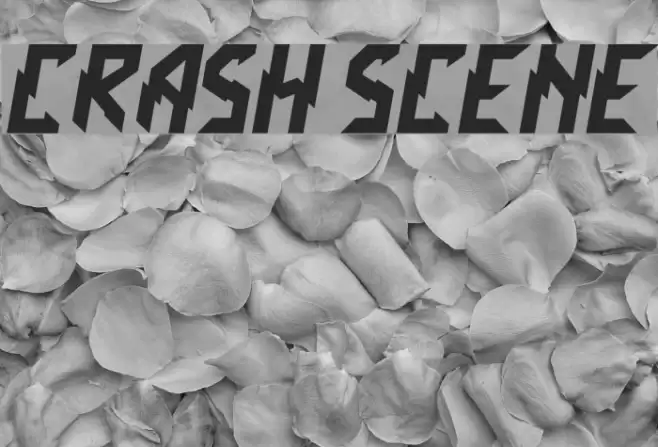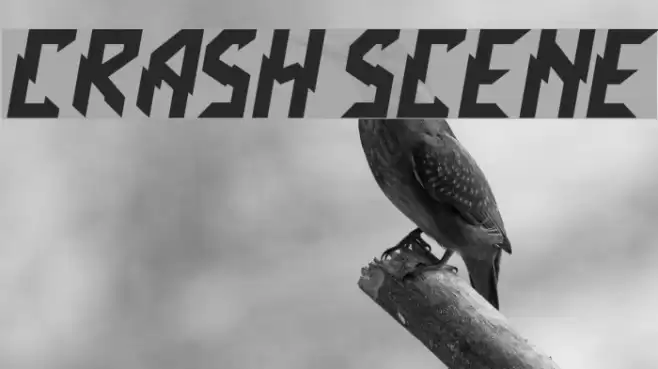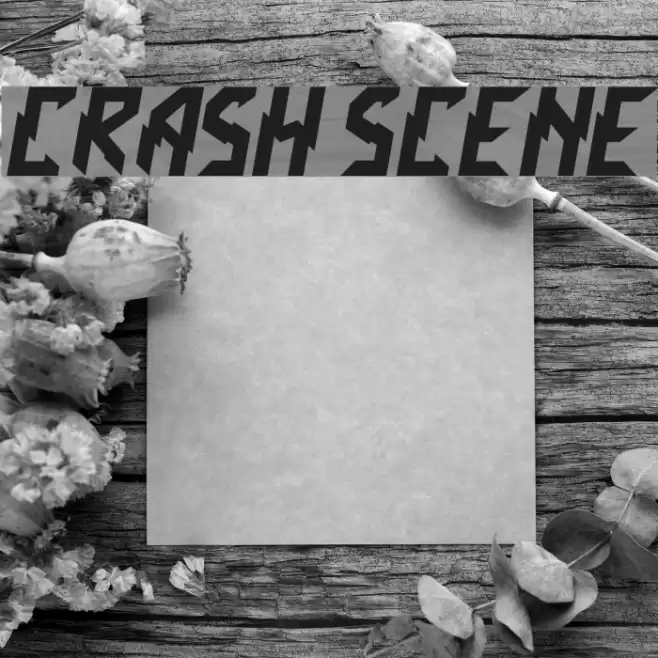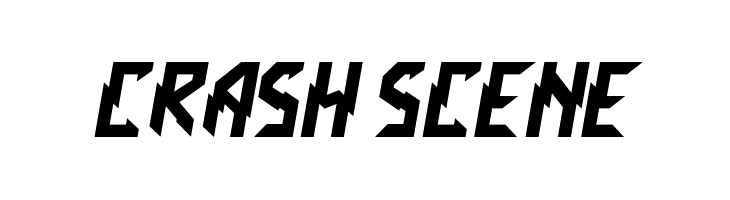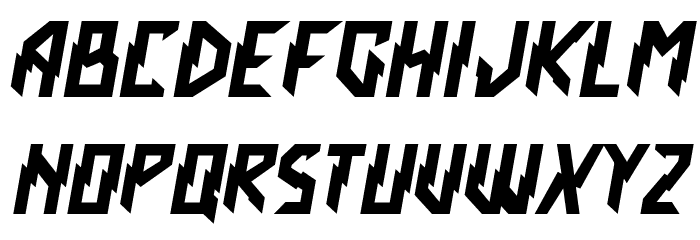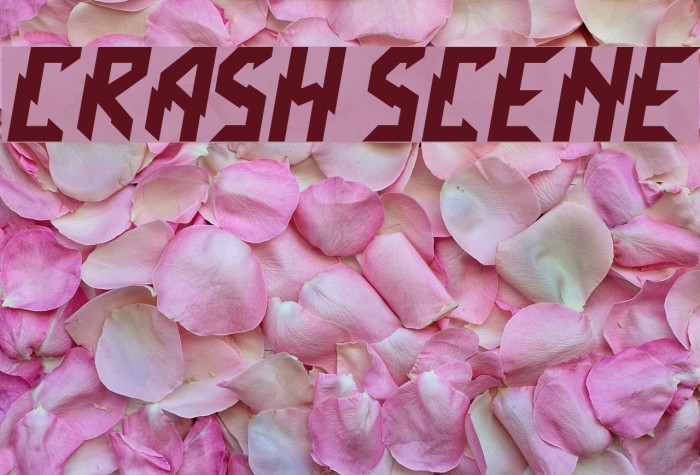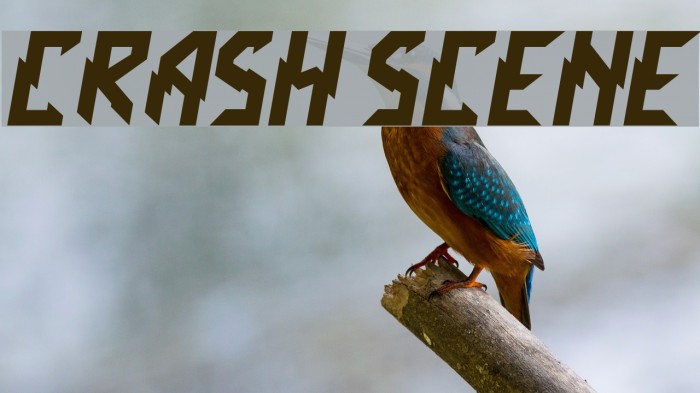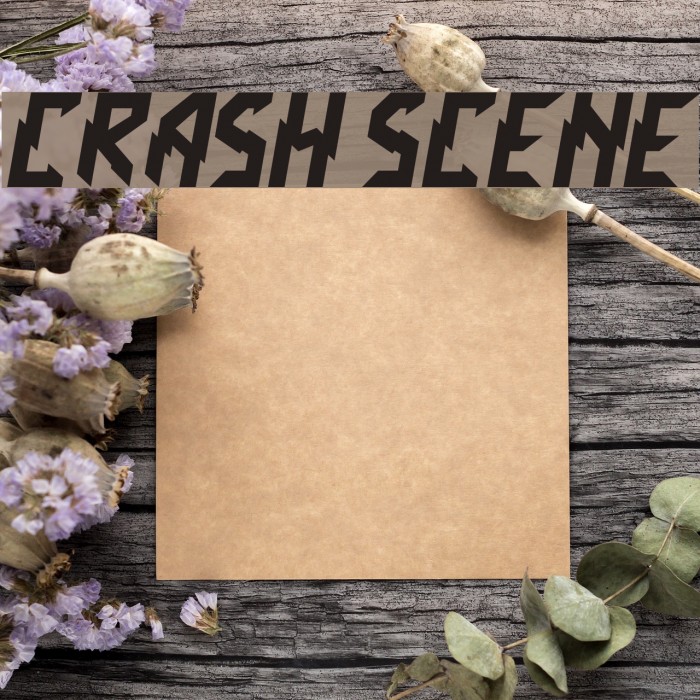
Crash Scene Font
Crash Scene Description
This font features a bold and dynamic design with sharp, angular edges that give it a distinctly aggressive and modern appearance. The characters are heavily stylized, resembling shards or fragments, which creates a sense of movement and energy. The uppercase letters are particularly striking, with each character maintaining a consistent height and width, contributing to a uniform yet edgy look. The font's unique style makes it ideal for projects that require a strong visual impact, such as posters, logos, or video game titles. Its boldness and distinctive character shapes ensure that it stands out in any design context.
A bold, angular font with a dynamic and aggressive style from Uncategorized fonts.
- Proposed Projects: Ideal for posters, logos, video game titles, and any design needing a strong visual impact.